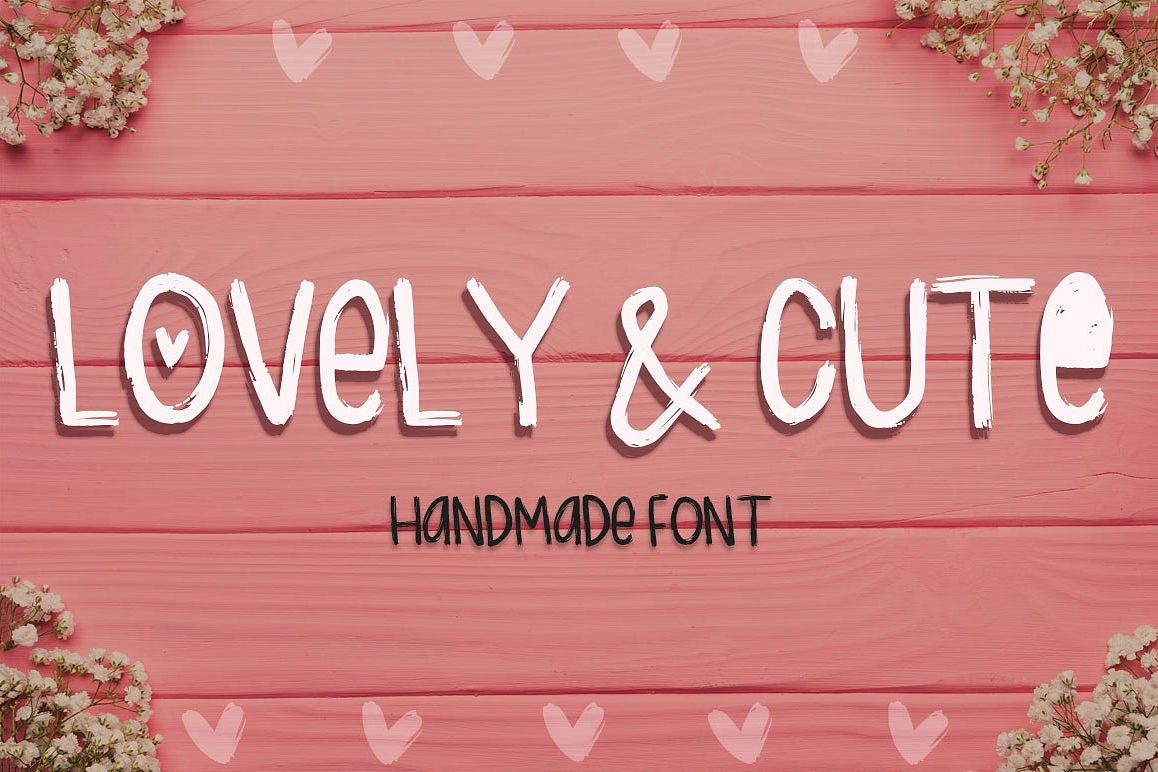
Lovely & Cute - 3 Handmade fonts!
Lovely & Cute - 3 handmade fonts!
The most romantic day of the year is coming and I'm all fever up with lovely and cheesy designs! Here I present you a Three pack font with that cute and goofy style that you can use in your designs and give it a unique touch.
- perfect for social media content.
- use it in your logo or identity brand projects
- create the most beautiful cards, invitations and more
- With multilangual characters